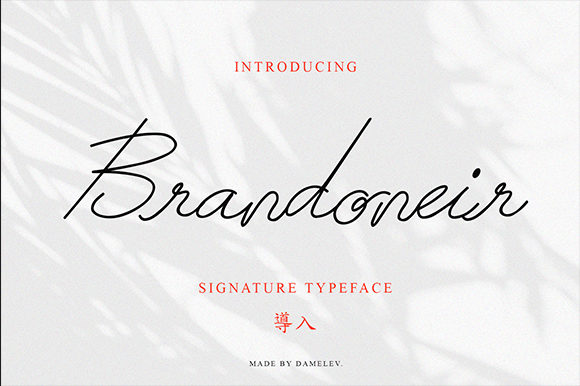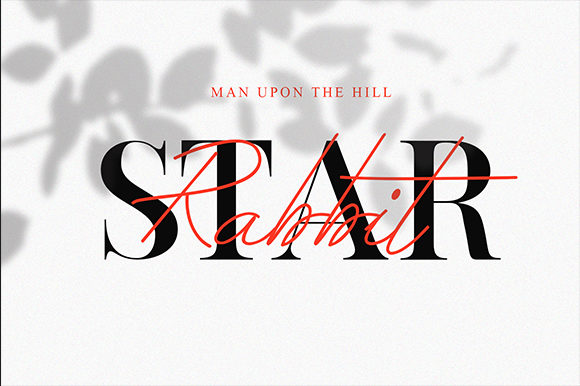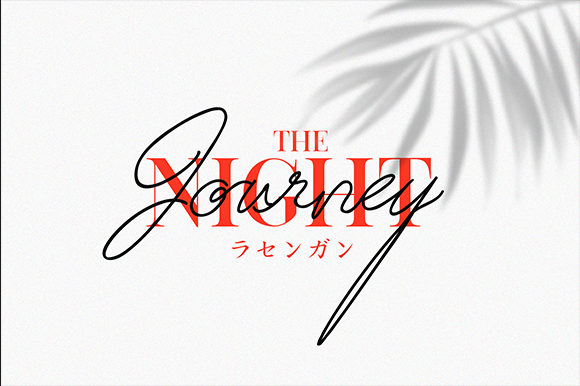
About Brandoneir Font
Brandoneir is a handwritten signature script with a natural & stylish flow. This script is perfect for personal branding. It was made with the intention to be used by photographers as a watermark for their business.